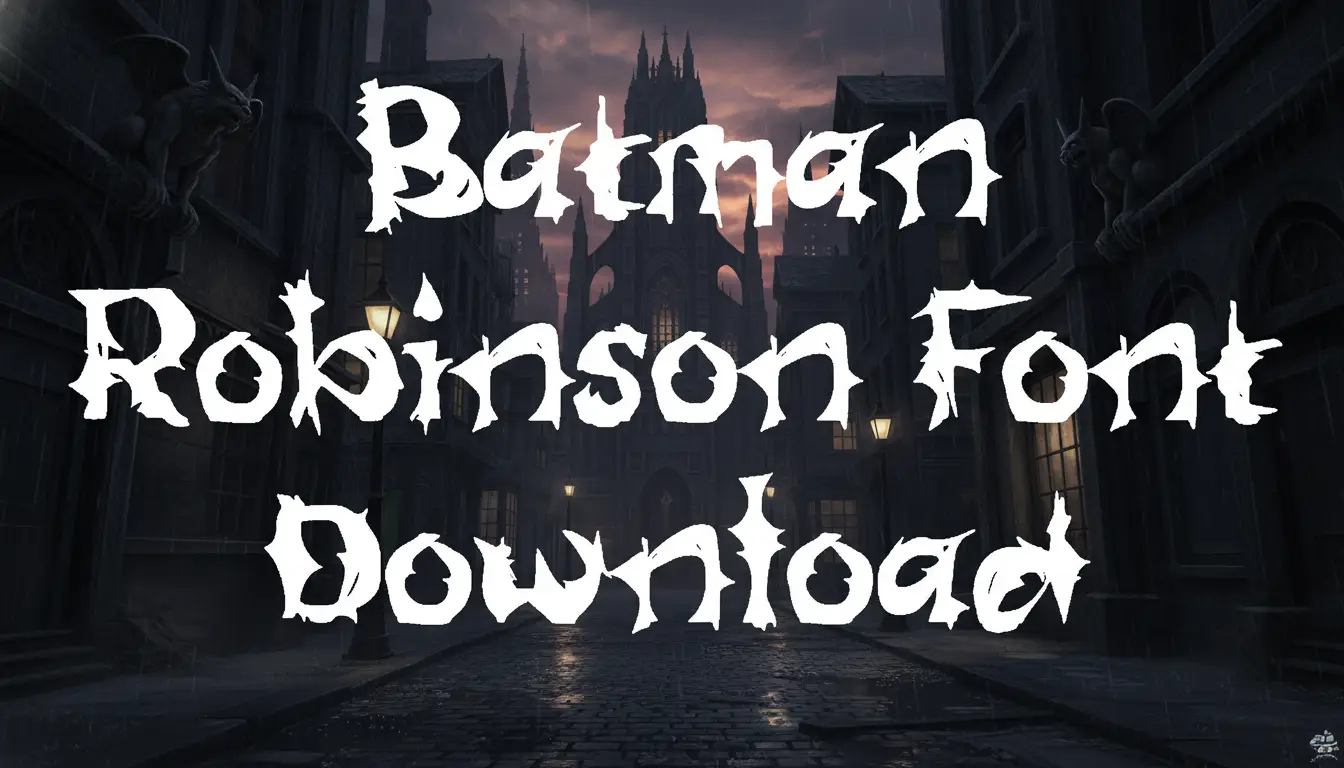
Batman Robinson Font
Batman Robinson
Batman Robinson is a horror font created by Wahyu Eka Prasetya. It looks like it belongs on a horror film poster, with shapes meant to make people a little uneasy. You can download it for free and test it with your own words in the preview above.
Batman Robinson covers the full alphabet in upper and lowercase, plus all ten numbers, so you can set names, dates and prices without switching fonts. Everyday marks like &, !, ? and @ are there too. There are no accented letters like é or ñ, so it's best kept to English text.
Batman Robinson is a natural fit for Halloween flyers, horror movie titles and game covers. Horror fonts hit hardest on dark backgrounds with plenty of empty space around the title.
No. Batman Robinson has no accented letters such as é, ñ or ü, so it's best for English text.
Use a plain, narrow sans serif for credits or details so the title does all the scaring.